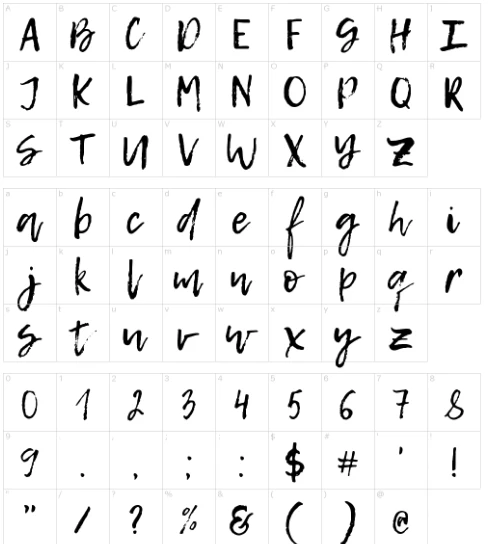
Lemon Tuesday is a beautiful Script and Handwritten font that we’re going to show you today. Typetype was the one who discovered the typeface. Daria Kwon’s passionate author calligraphy inspired this design. This font first appeared in August 2016 during Typetypeschool’s online course “Your Font.” First and foremost, Lemon Tuesday is well-suited to short expressive inscriptions. As a result, it will be ideal for creating gorgeous material for social media and specialist publications.
The typeface also comes with a basic set of Cyrillic letters and an extended Latin set. Lemon Tuesday is a Script typeface that works on all platforms, including PC, Mac, Linux, iOS, and Android. If you enjoy making handcrafted items, you can use this typeface because it is designed specifically for them. This font is a wonderful fit for anything with lemon in it, whether it’s a wallpaper, logo, or project. You can use it in a bold typeface with a bright color scheme, which I think will look fantastic.
Lemon Tuesday is a handwritten experiment typeface created with ink and a parallel pen. The gorgeous Script and handwritten is ideal for logo design, inspiring quotations, t-shirt designs, typography art, apparel, labels, badges, Logo design, labels, headers, or just as a stylish text overlay to any backdrop image.